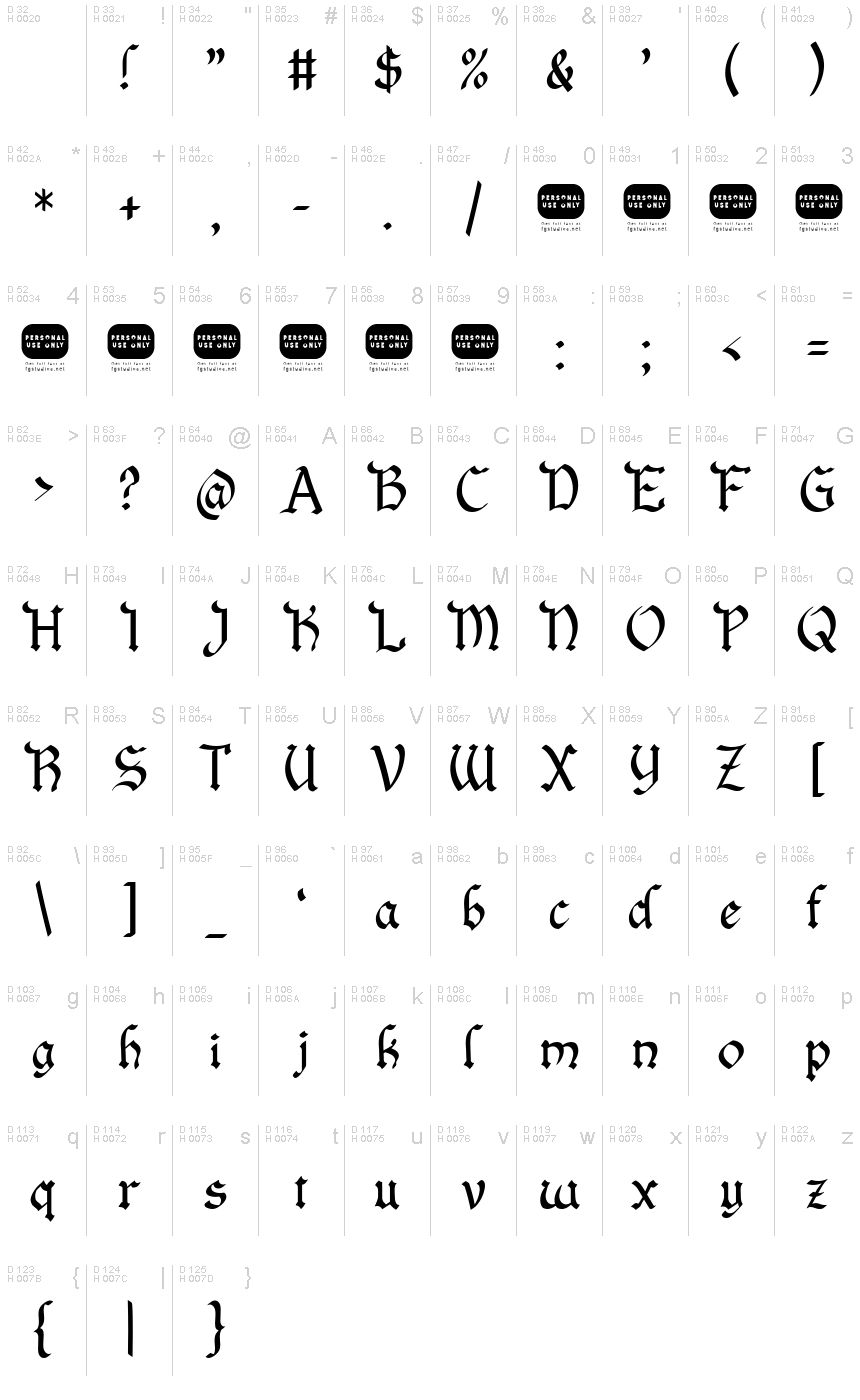
Salium
Salium, a striking gothic font crafted by FG Studios, exudes an unmistakable medieval charm. Its bold, angular letterforms and dramatic flourishes evoke a sense of timeless grandeur, transporting the viewer to a bygone era. The intricate, ornate detailing of this font captivates the eye, imbuing any text with a sense of historical significance and captivating elegance.
This versatile font lends itself well to a variety of design applications, from book covers and album art to event invitations and brand identities. Its strong, distinctive character makes it an excellent choice for headers, titles, and other prominent design elements, where it can command attention and set the tone for the overall aesthetic. Whether used in a historical context or a more modern setting, Salium's unique personality shines through, making it a valuable asset in the designer's toolkit.